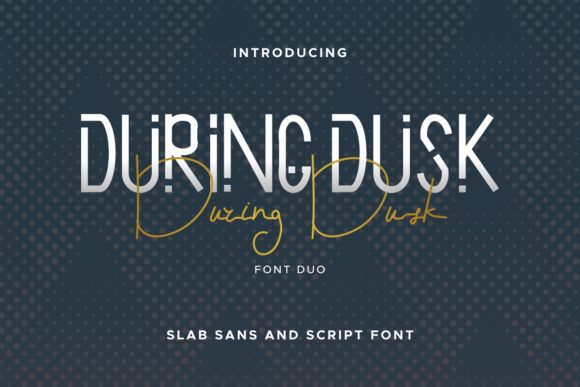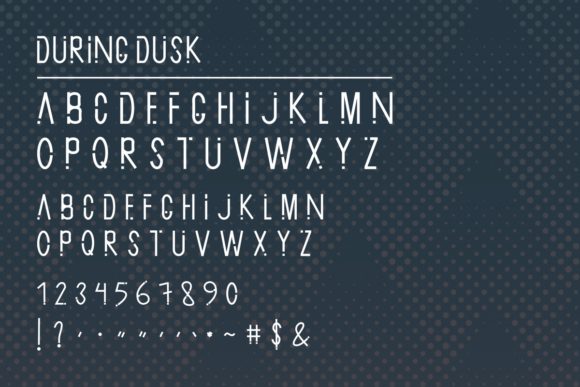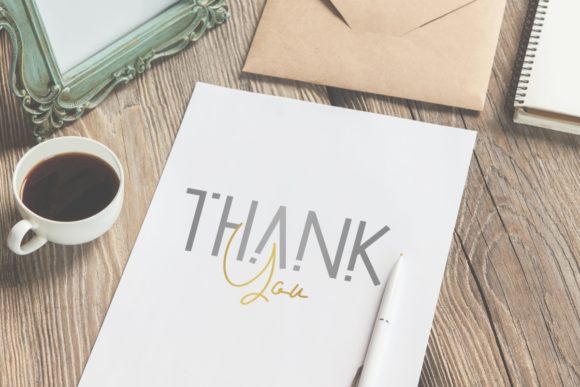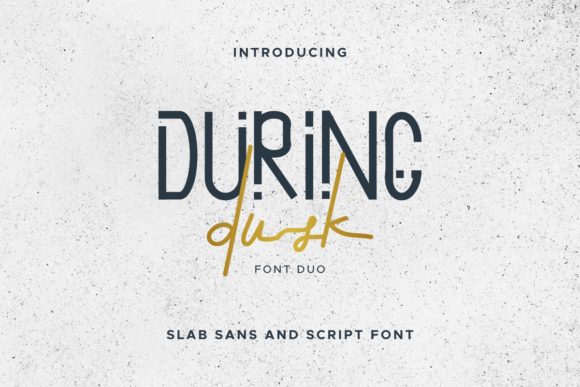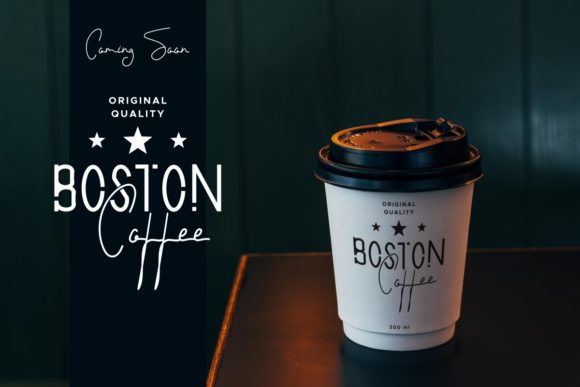
About During Dusk Font
During Dusk is a casual and versatile duo font (display and handwritten). It is suitable for any branding, product packaging, invitation, quote, t-shirt, label, poster, logo that you wish to create.